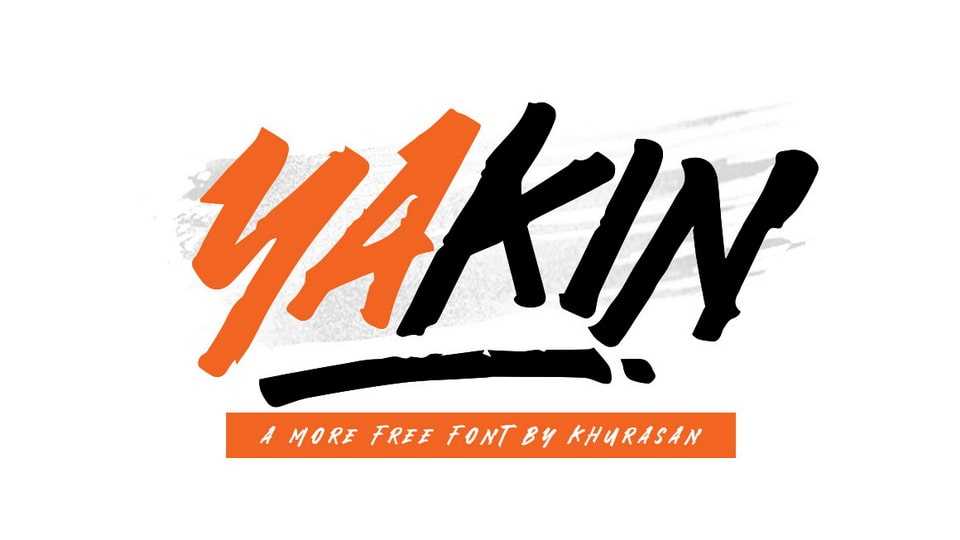
Download Yakin font, a dynamic and energetic hand lettered brush typeface. With its bold look Yakin font is perfect for posters, logos, magazines, book covers, banners, and many more.